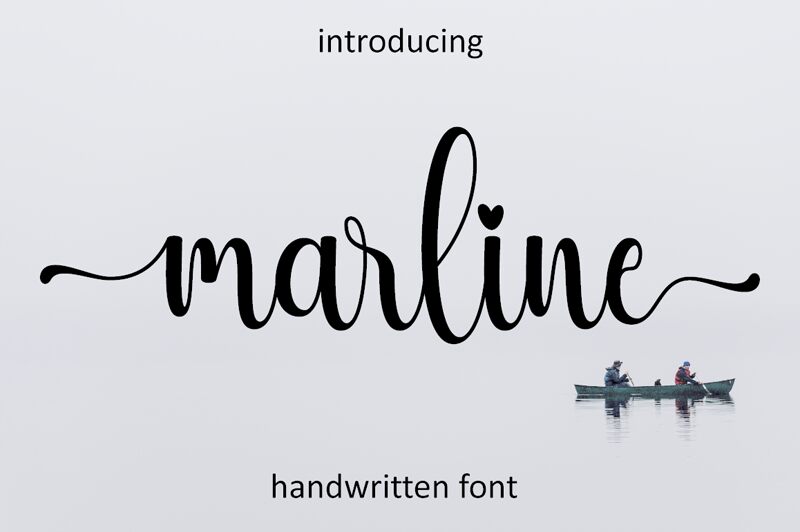
Marline
Marline, a creation of Hardiboy Design, is a font that exudes elegance and personal touch inherent in calligraphy. Its flowing lines suggest a blend of classic artistry with contemporary flair, making it an ideal choice for projects that require a touch of sophistication. Each character in Marline boasts gracefully varied strokes, with delicate embellishments such as the heart dotting the 'i', adding a bespoke charm.
This font's aesthetic appeal lies in its ability to convey warmth and individuality, making it particularly suited for invitations, branding, and decorative text where personality is paramount. Marline's style lends itself beautifully to creative endeavors that demand an intimate yet polished look.